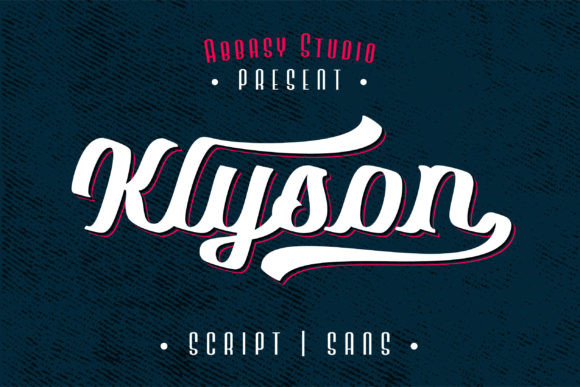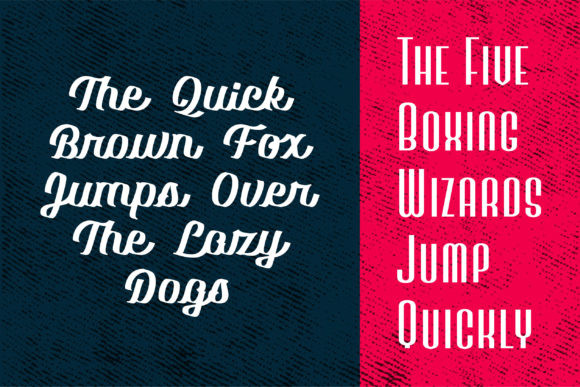
Klyson Font
Klyson font duo is a match made in heaven, the clean and cute script style perfectly complements the sans serif style. Combining these two fonts on your next design will give a fancy and modern feel.
It will elevate a wide range of design projects to the highest level, be it branding, headings, wedding designs, invitations, signatures, logos, labels, and much more!